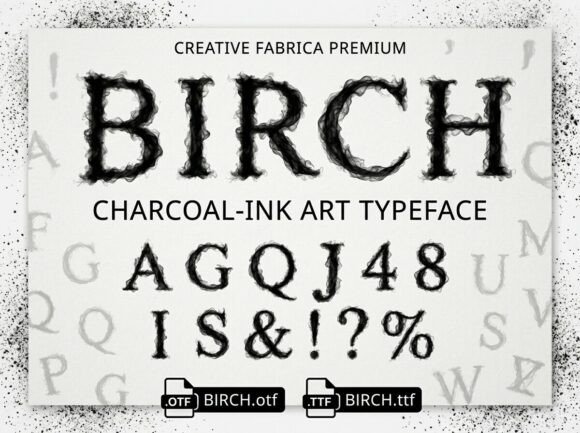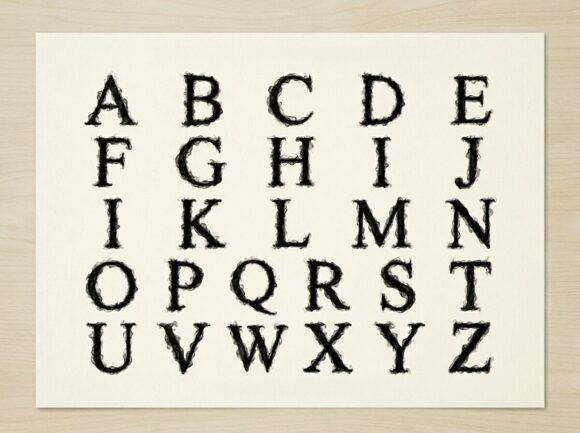
Introducing Birch Font: A Stunning Decorative Display Font
Are you tired of using the same old fonts for your designs? Do you want to add a touch of uniqueness and creativity to your projects? Look no further than Birch Font, a decorative display font that is sure to turn heads. In this article, we’ll take a closer look at what makes Birch Font special and how it can elevate your designs.
Birch Font is a stunning decorative display font designed to be the center of attention. With its unique artistic elements and strong visual personality, this font is perfect for creators who want to break away from the ordinary. Whether you’re working on a bold headline, artistic logo, or creative packaging, Birch Font is versatile enough to make a lasting impression while maintaining a professional and polished finish.
Why Choose Birch Font?
So, why should you choose Birch Font for your next project? Here are just a few reasons:
- Unique and Creative: Birch Font offers a unique and creative way to add visual interest to your designs. Its artistic elements and strong visual personality make it perfect for designers who want to stand out from the crowd.
- Versatile: This font is versatile enough to be used for a variety of design projects, from bold headlines and artistic logos to creative packaging and more.
- Professional and Polished: Despite its creative and artistic nature, Birch Font maintains a professional and polished finish, making it suitable for a wide range of applications.
- Use it for Headlines: Birch Font is perfect for bold headlines and titles. Use it to add visual interest to your designs and draw attention to important information.
- Create Artistic Logos: This font is also great for creating artistic logos and branding materials. Its unique and creative design makes it perfect for businesses that want to stand out from the competition.
- Add Decorative Initials: Birch Font is specifically designed for decorative initials, making it perfect for adding a touch of elegance and sophistication to your designs.
In conclusion, Birch Font is a stunning decorative display font that is sure to elevate your designs. With its unique artistic elements, strong visual personality, and versatility, this font is perfect for creators who want to break away from the ordinary. Whether you’re working on a bold headline, artistic logo, or creative packaging, Birch Font is a great choice. So why wait? Purchase Birch Font today and start adding a touch of creativity and uniqueness to your designs.